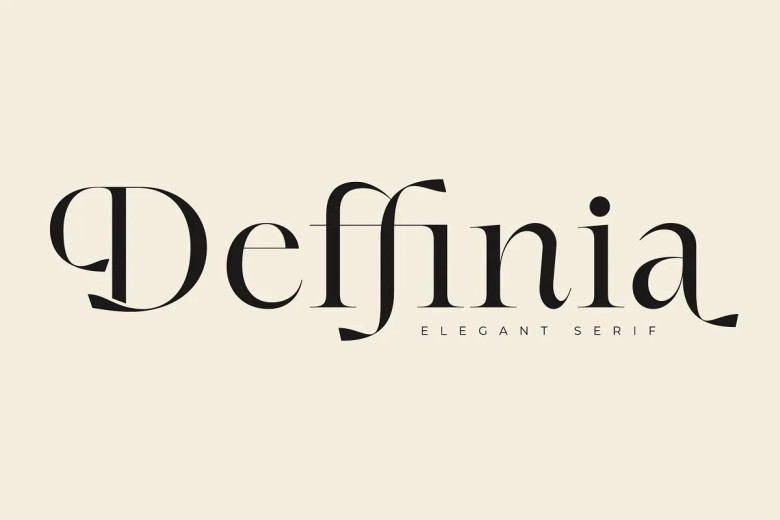
Deffinia Font
Deffinia is an elegant font with an authentic vintage aesthetic, creating an eye-catching statement in headlines, logos and trademarks alike. Compatible with Basic Latin Glyphs as well as various alternative types (and some ligatures), Deffinia allows designers to craft distinctive designs while remaining relevant without losing its classic character.
Deffinia font comes equipped with an optional Privacy Use Area (PUA) feature to further personalize its appearance, making Deffinia an exceptional font combining classic beauty with boldness and flexibility to enhance writing quality and leave an indelible mark.
Deffinia Serif Font